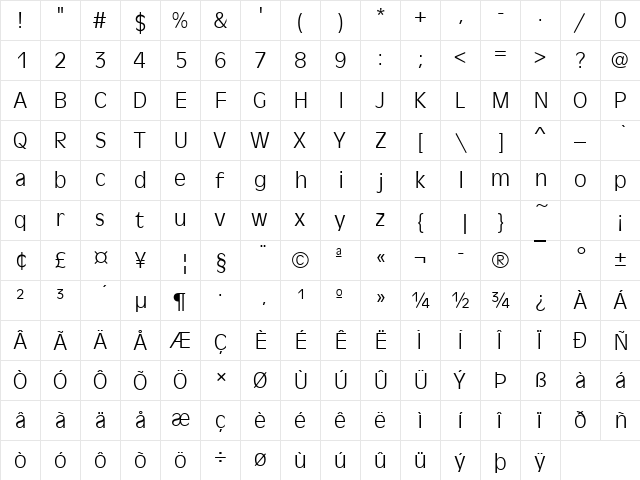
Antigoni Light Regular
Design Context for Antigoni Light Typeface
Antigoni Light is a composed and adaptable typeface that performs quietly and consistently across a wide range of design contexts. The delicate stroke weight brings airiness and refinement to layouts.